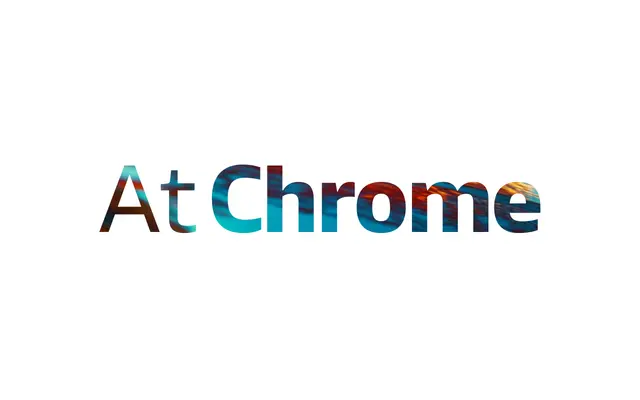
At Chrome
Arillatype · Pedro Arilla · 2024
A screen-optimised geometric sans by Pedro Arilla, built across nine weights from Air to Super with a dedicated Retina cut for high-density displays.
Released in December 2024, the family spans 18 styles and includes a Retina weight engineered specifically for high-density screens, sitting alongside the standard upright and italic range. Eight stylistic sets cover alternate forms for individual letterforms, supported by a full suite of OpenType features including tabular figures, fractions and scientific inferiors. Variable font files ship with the full family purchase, covering both weight and style axes.
A sharp, screen-optimised sans with geometric precision and clean terminals; the inclusion of a dedicated Retina weight and crisp stroke rendering place it firmly in the geometric sans tradition oriented towards digital environments.